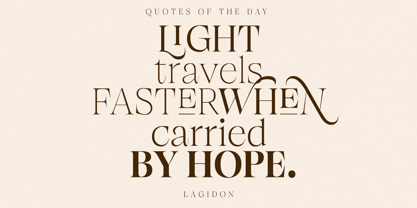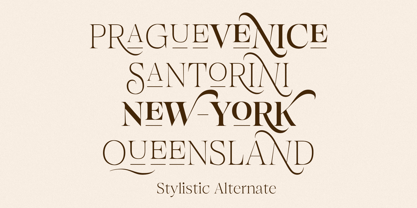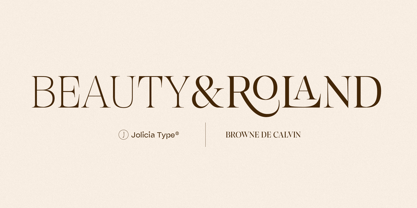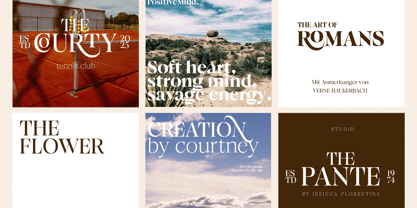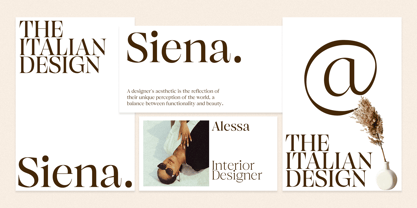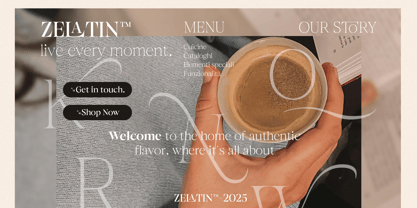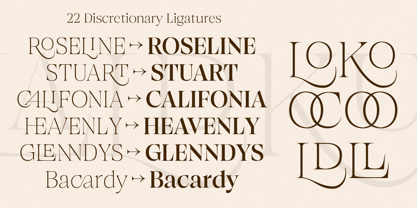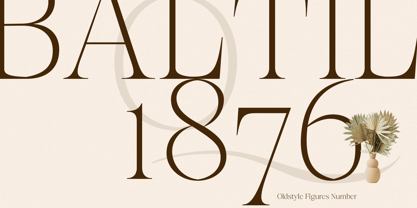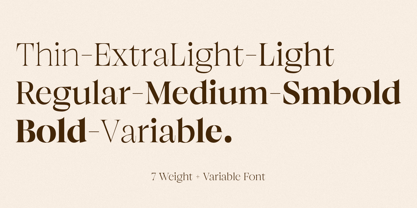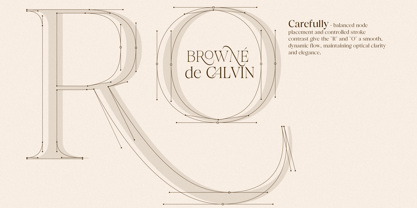
Browne de Calvin
by Jolicia Type
The Browne de Calvin Font Family was designed by Laire Banyu and published by Jolicia Type. Browne de Calvin contains 8 styles and family package options. More about this family
Browne de Calvin – Luxury Roman Serif Typeface
Introducing Browne de Calvin, a timeless serif typeface crafted with exquisite elegance and sophisticated precision. Designed to embody the spirit of luxury, Browne de Calvin blends the classic beauty of Roman serif tradition with a contemporary refinement, making it a perfect choice for high-end branding, editorial designs, invitations, and more.
Browne de Calvin features a rich OpenType system, offering 22 finely designed ligatures and 10 stylistic alternates to enhance your typography and unlock limitless creative possibilities. Whether you're aiming for an editorial flourish or a minimalist aesthetic, the custom features allow you to tailor each composition beautifully.
With a versatile range of 7 meticulously crafted weights — from Thin to Bold — Browne de Calvin offers full flexibility for both delicate and strong typographic expressions. For even greater control, it also comes with a Variable Font version, enabling seamless weight adjustments to match your vision perfectly.
Let Browne de Calvin elevate your designs with its timeless grandeur, where every letterform speaks of grace, precision, and sophistication.
Designers: Laire Banyu
Foundry: Jolicia Type